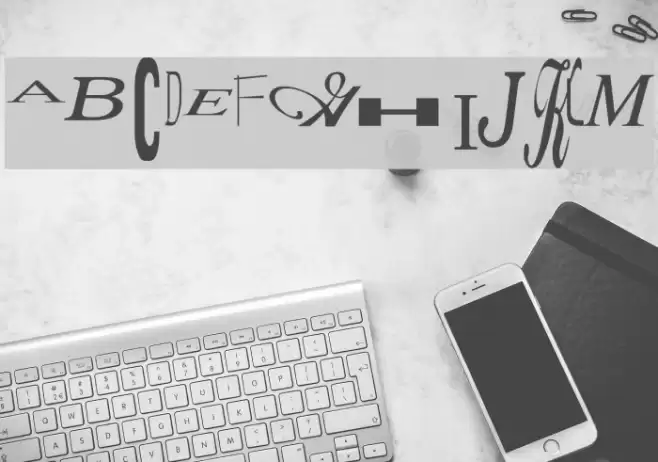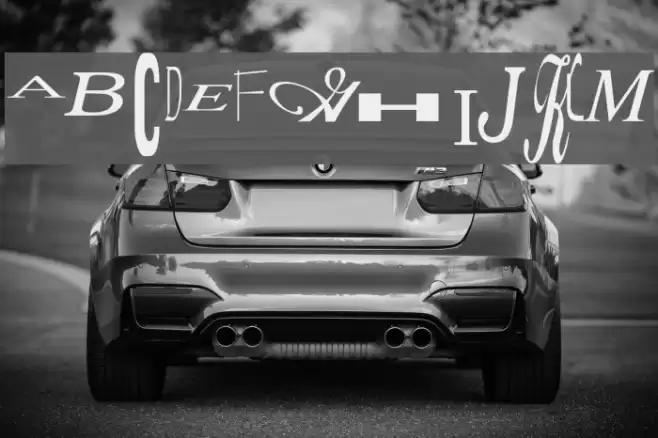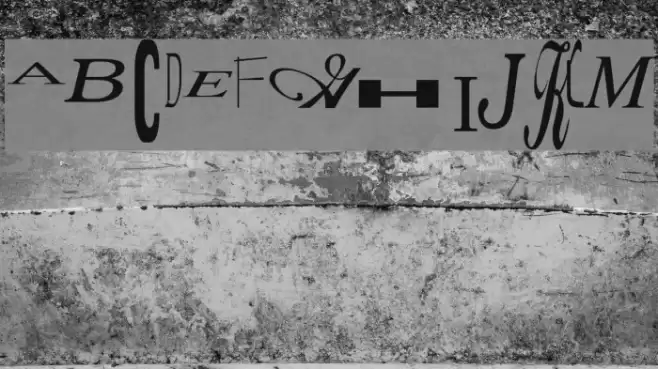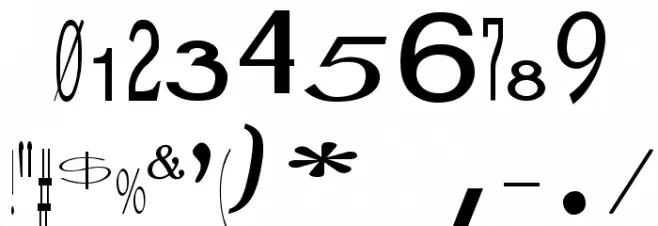
Jumbalaya Font
Jumbalaya Description
This font is a whimsical and eclectic mix of styles, combining elements from various typefaces to create a playful and unpredictable appearance. Each character seems to have its own personality, with some letters featuring swirls and flourishes, while others are bold and straightforward. The uppercase letters are particularly varied, with some resembling classic serif styles and others leaning towards modern sans-serif or even script-like forms. The lowercase letters continue this theme of diversity, offering a mix of traditional and contemporary aesthetics. Numbers and special characters follow suit, adding to the font's overall quirky and artistic vibe.
An eclectic and playful font with a mix of styles and personalities from Decorative fonts.
- Proposed Projects: Ideal for creative projects such as posters, album covers, or any design that benefits from a unique and artistic touch.
- Character Spacing: Varied
- Use Case: Logos, Posters, Artistic Designs